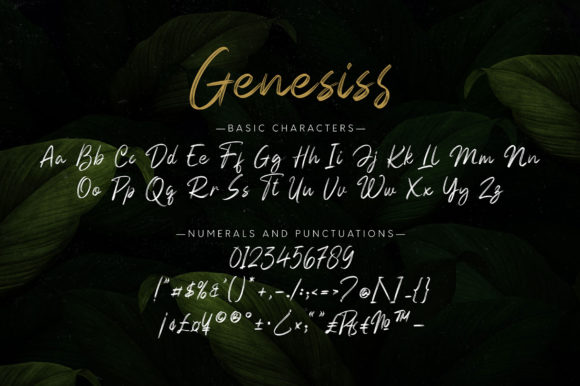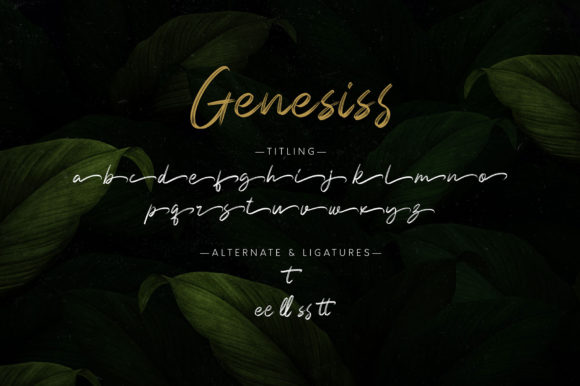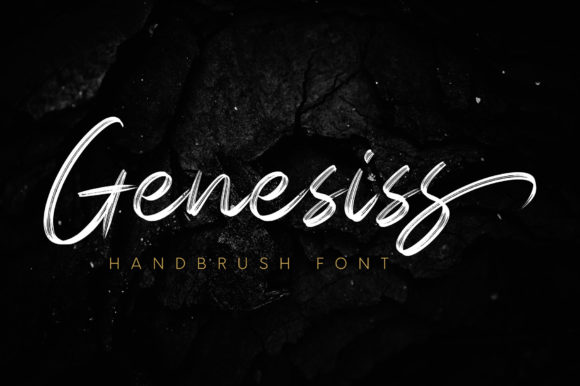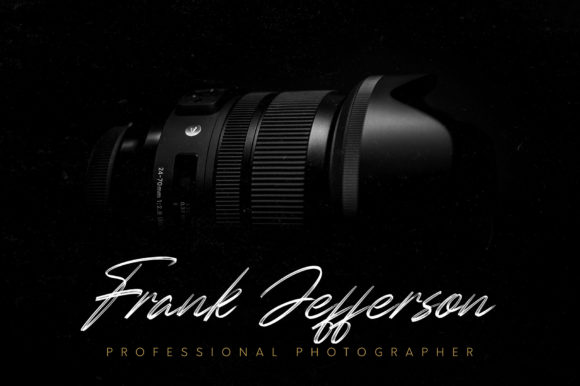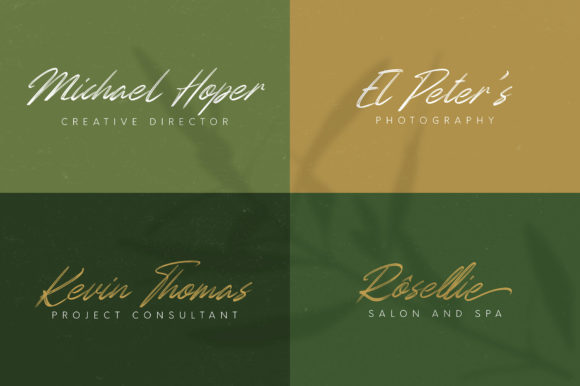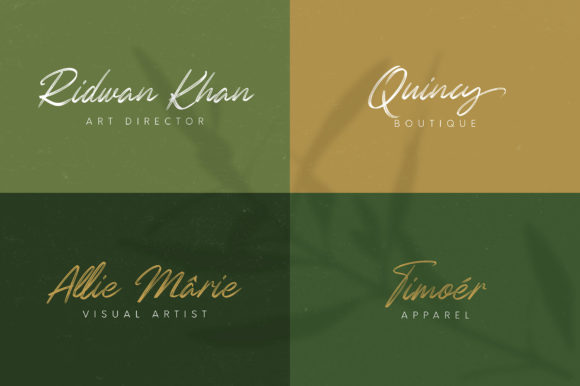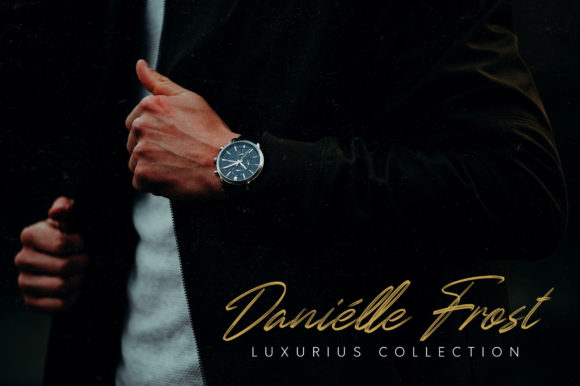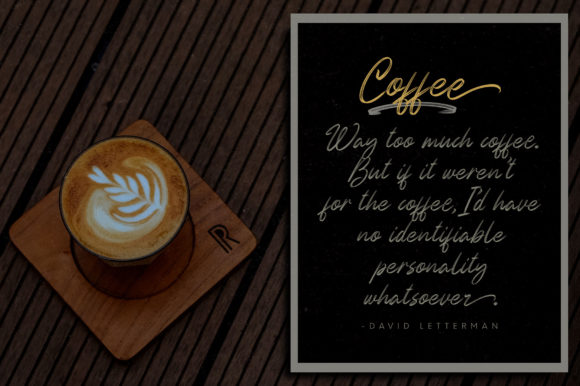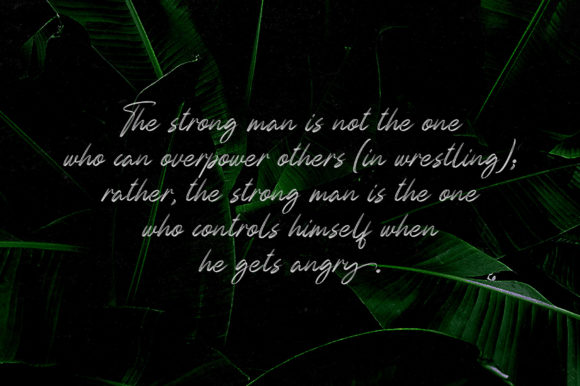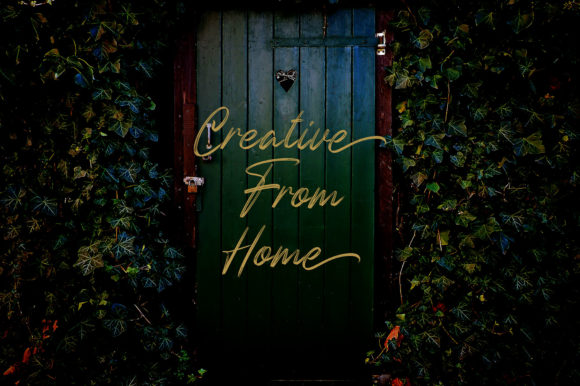
Genesiss Font
About Genesiss Font
Genesiss is a lovely and flowing handwritten font, designed with the help of an outstanding brush pen. Use this relaxed and distinct font to bring your projects to the highest level!